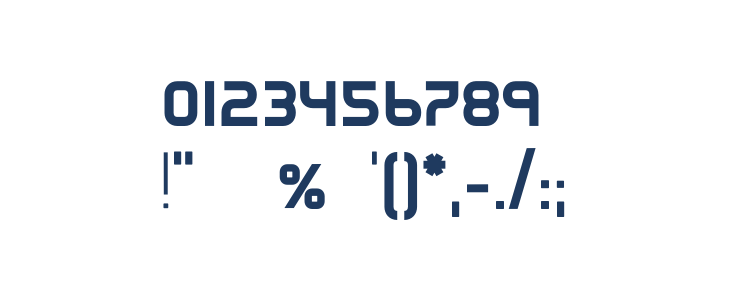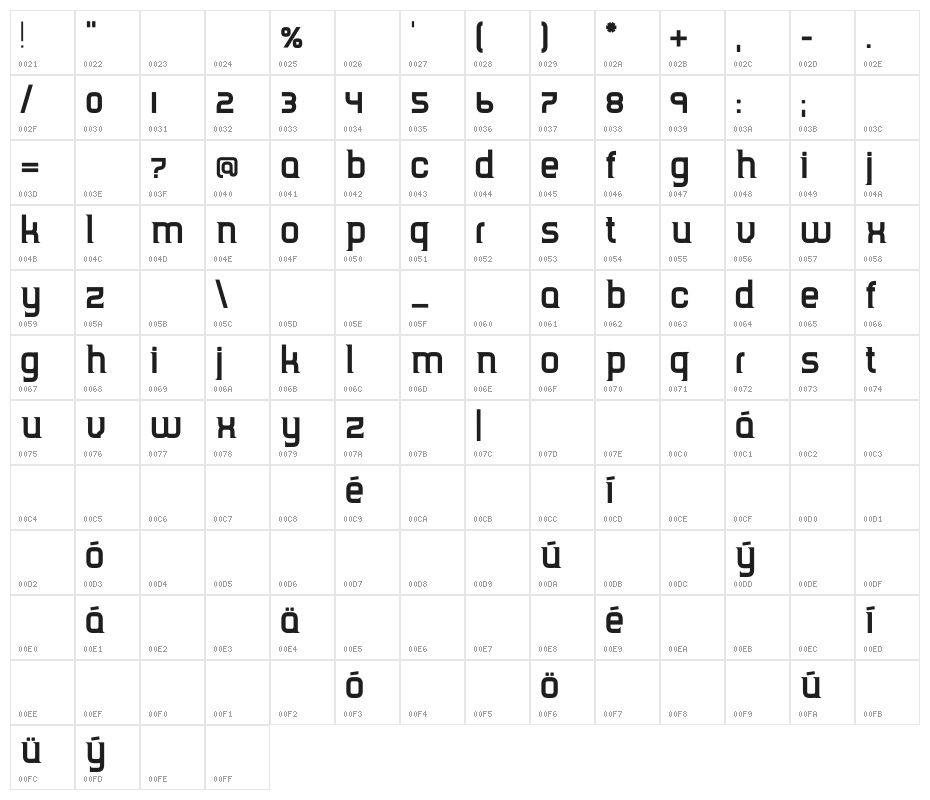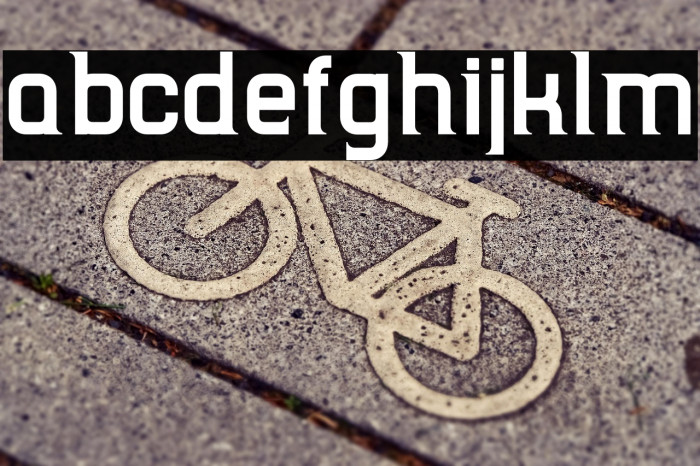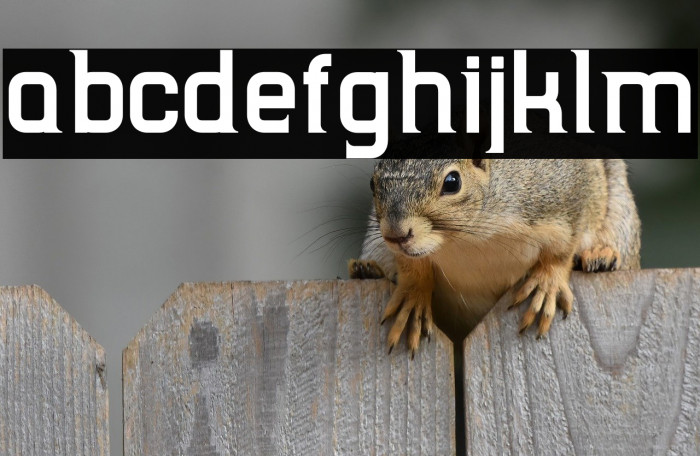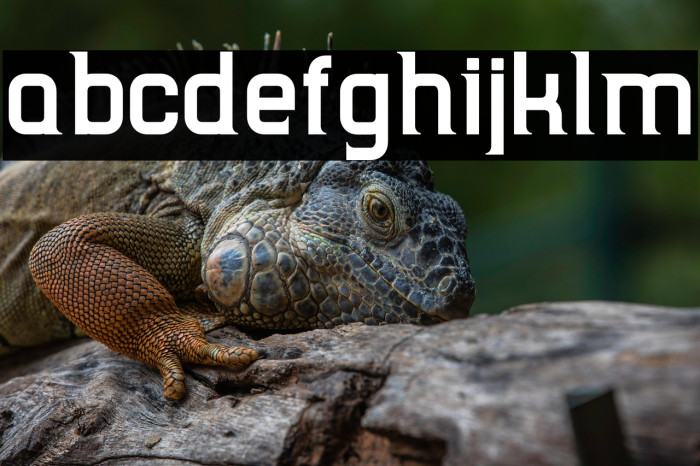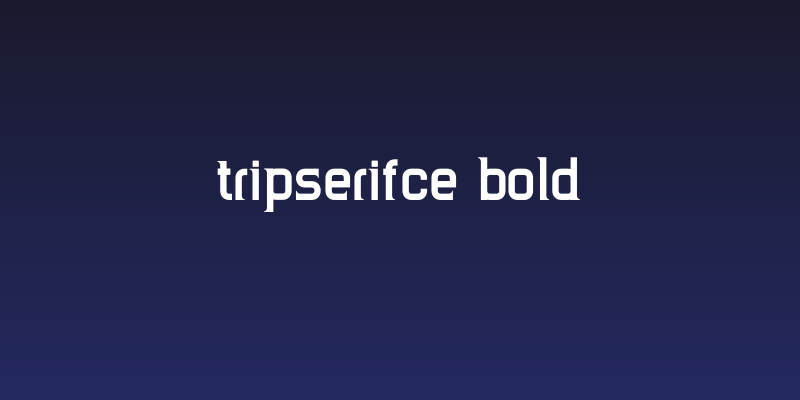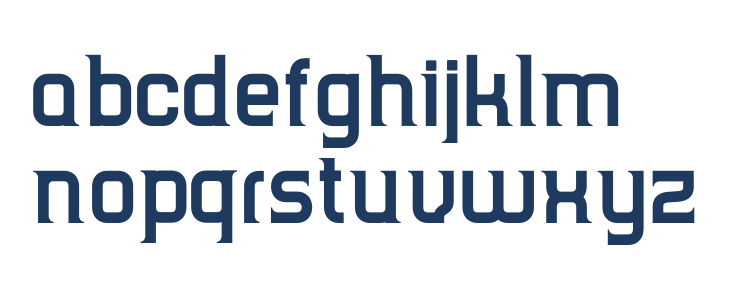
TripSerifCE Bold Font
TripSerifCE Bold Description
This font features a bold and structured design with a modern twist. The characters are well-defined with a consistent stroke width, giving it a strong and confident appearance. The uppercase and lowercase letters maintain a uniform style, while the numerals are clear and easy to read. Special characters are distinct and complement the overall design. The font's geometric shapes and clean lines make it suitable for various applications, providing a contemporary and professional look.